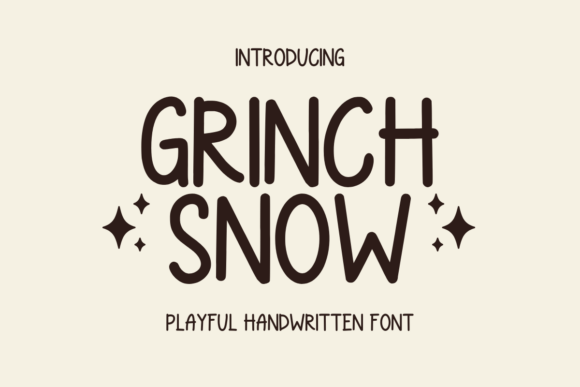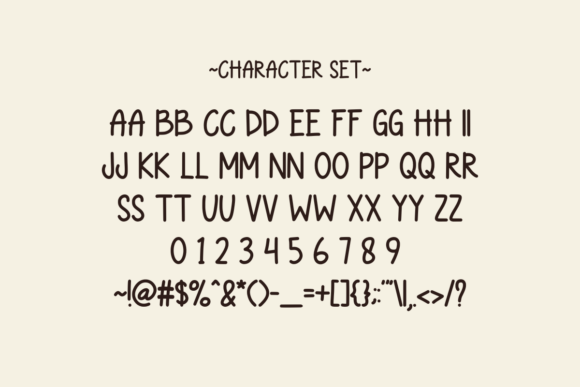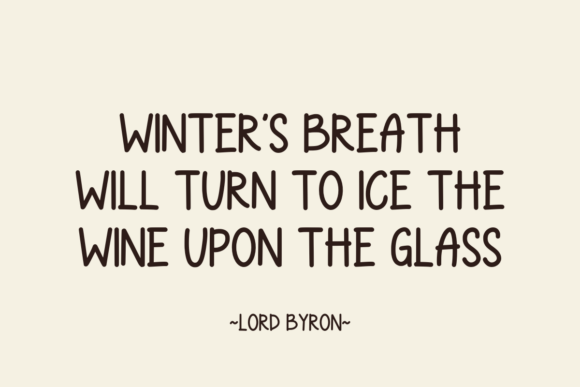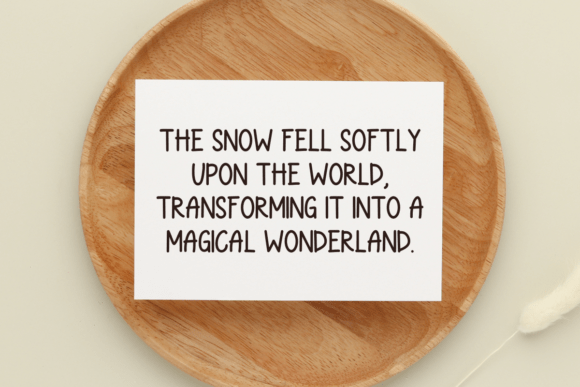
Grinch Snow Font
About the Grinch Snow Font
Crafted with precision, the Grinch Snow Font is ready to bring your ideas to life. Grinch Snow is a playful handwritten font that’s perfect for crafts, planners, KDP, stickers, greeting cards, and more. With its cute and friendly style, it works great for Cricut, sublimation, and creative DIY projects. Ideal for crafters, designers, and makers!
Its friendly, slightly whimsical style makes it ideal for children’s books, branding for small businesses with a playful approach (e.g., bakeries, toy stores), and festive designs. Avoid using it for large blocks of text or formal documents; its informal nature isn’t suited to body copy or UI elements.
Pairing Grinch Snow with a clean sans-serif like Open Sans for body text creates a balanced contrast, while a classic serif like Garamond adds a touch of sophistication for more polished applications. Consider a simple geometric sans-serif like Montserrat for a modern, yet equally approachable feel.
The font’s overall personality is cheerful and approachable, conveying a sense of warmth and lightheartedness.
Grinch Snow Font Example